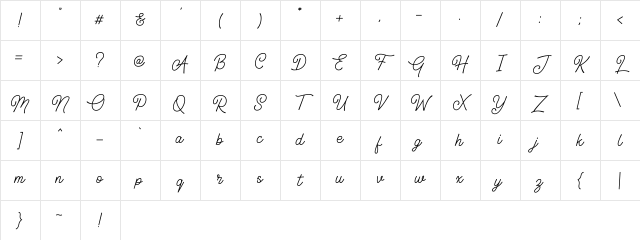
Geraldyne Demo Regular Free Font
Geraldyne Demo Regular
Designer: Weape Studio
Design Context for Geraldyne Demo
Geraldyne Demo is a composed and adaptable typeface that performs quietly and consistently across a wide range of design contexts.